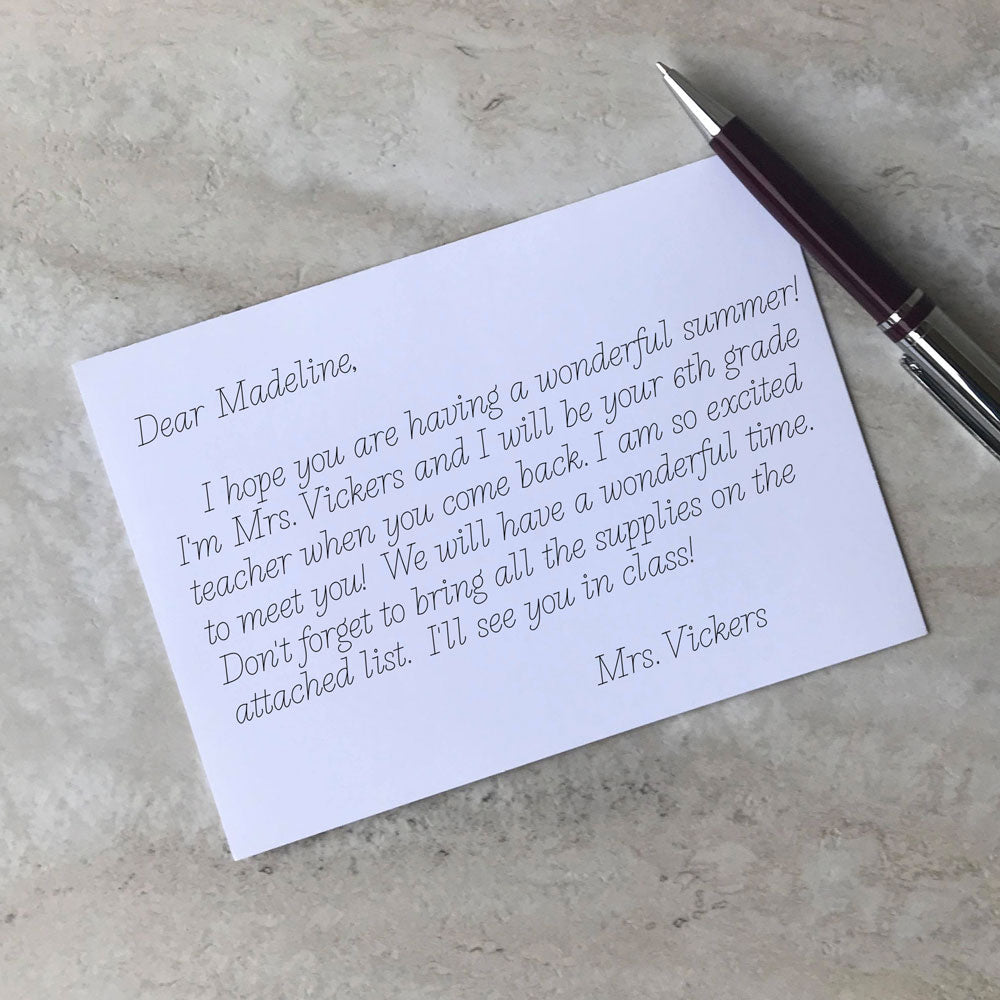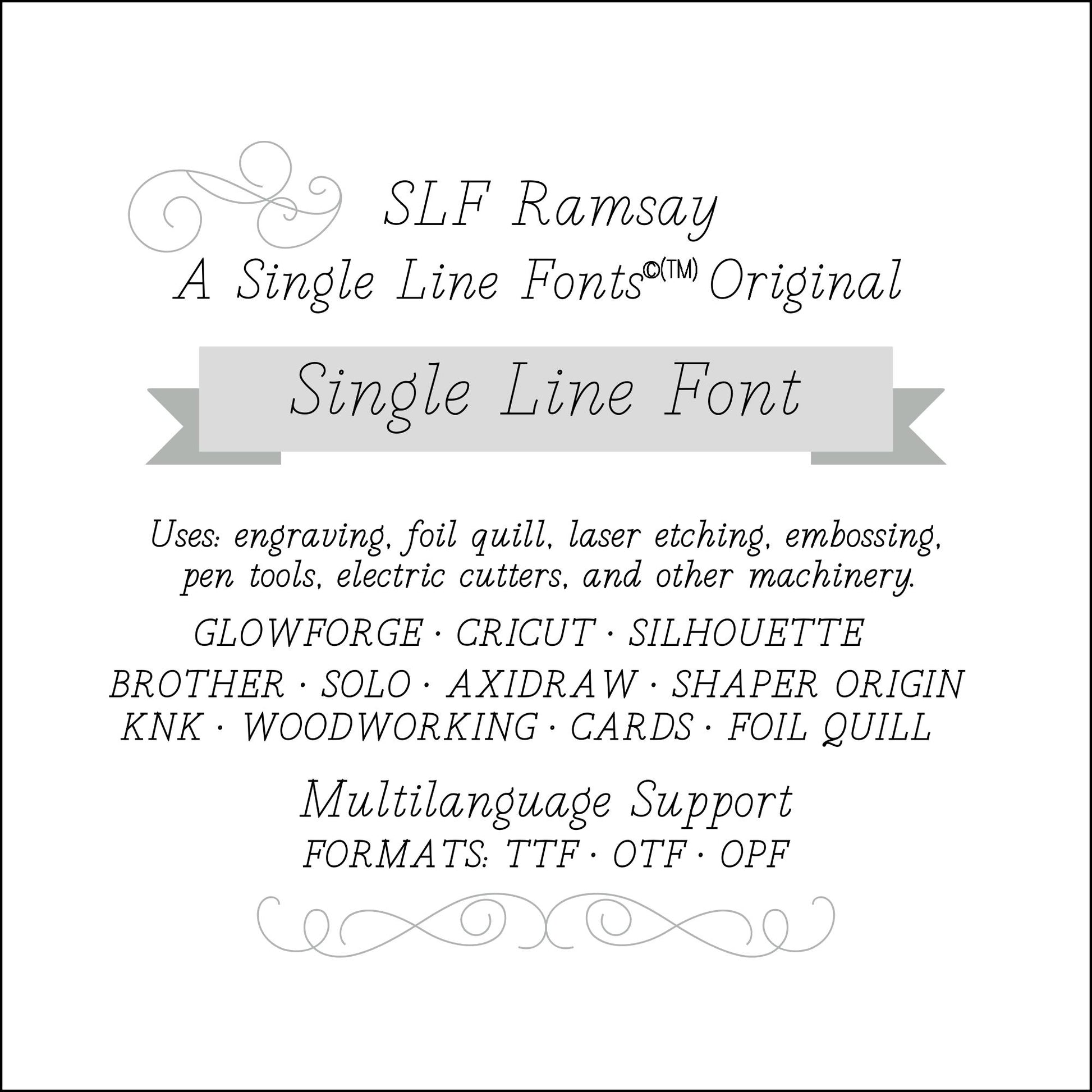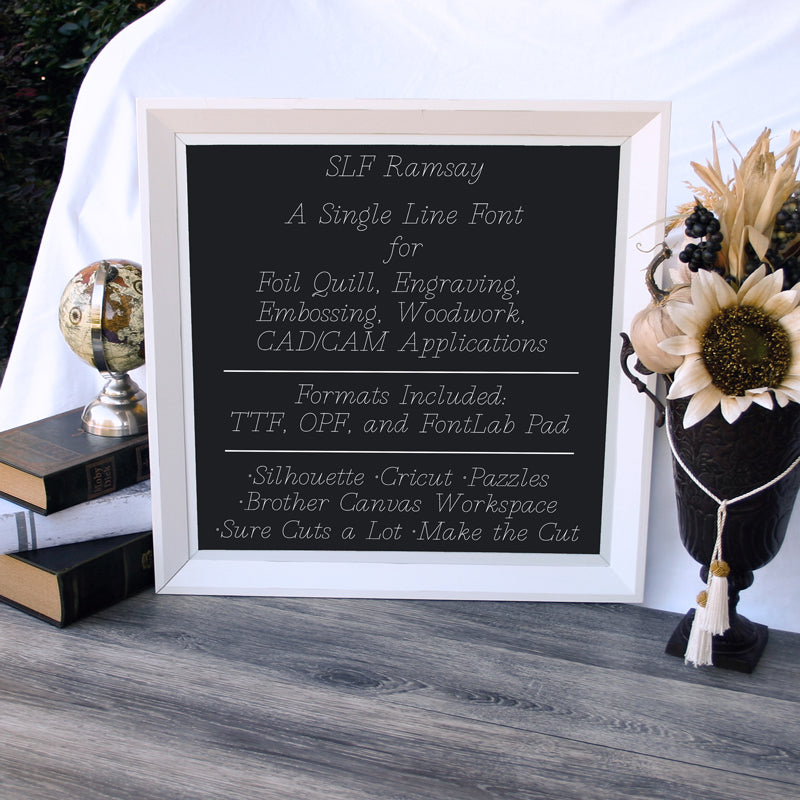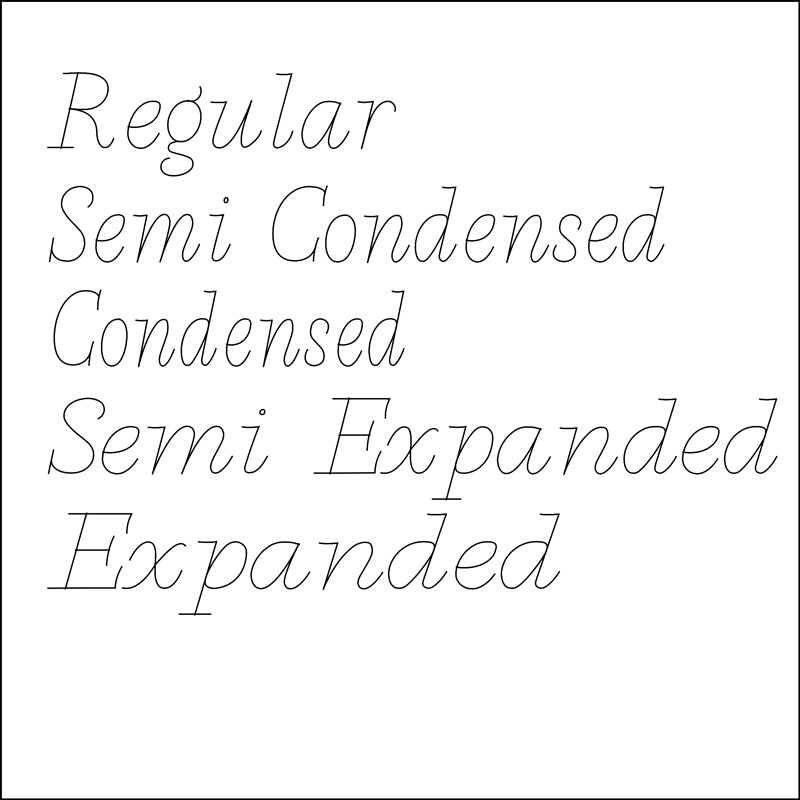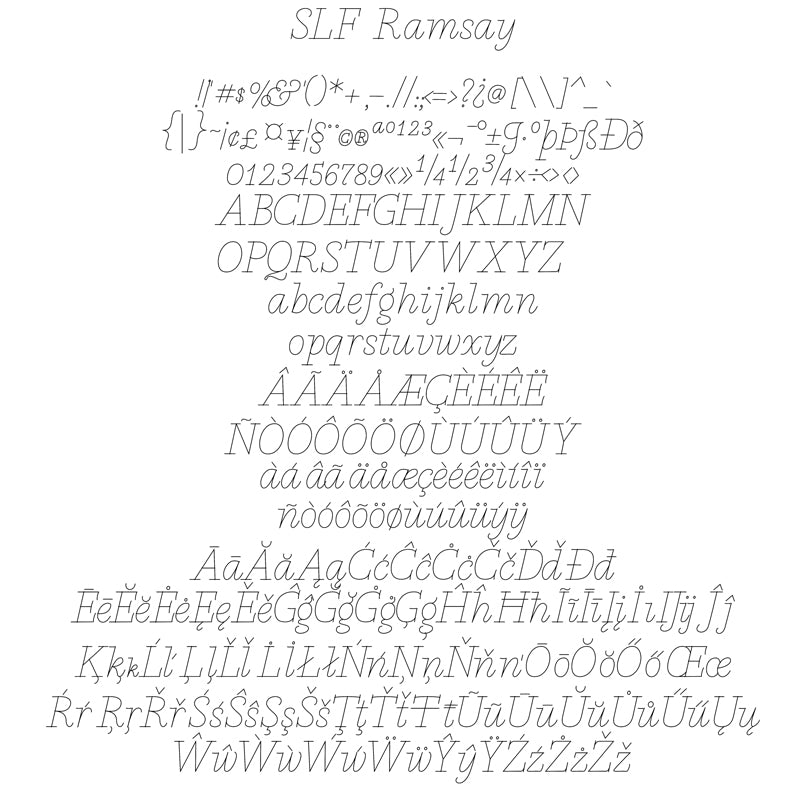
SLF Ramsay – Italic Single Line Font Family for Engraving & Crafts
SLF Ramsay is a print italic font with a flair. This font has the following styles:
Regular
Semi Condensed
Condensed
Semi Expanded
Expanded
This versatile single line print family offers refined geometric strokes and a stylish slanted shape that works beautifully for engraving, scoring, CNC routing, sketch projects, and polished craft designs. The five included styles give you built-in hierarchy and flexibility for signage, labels, décor, and personalized gifts.
Each style includes uppercase and lowercase letters, numbers, punctuation, symbols, and accented characters for multilingual support.